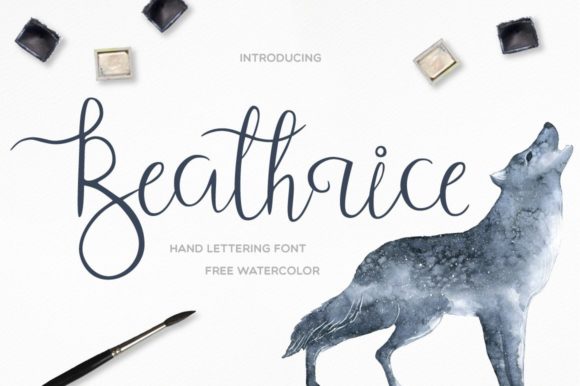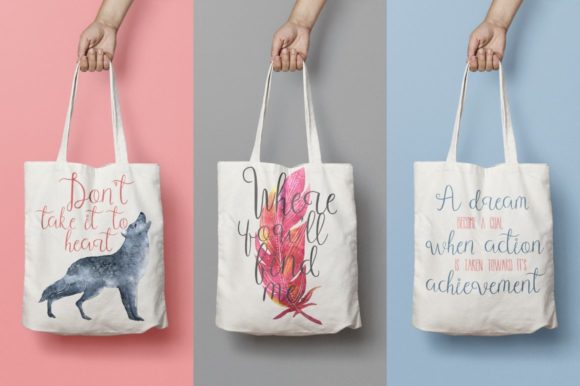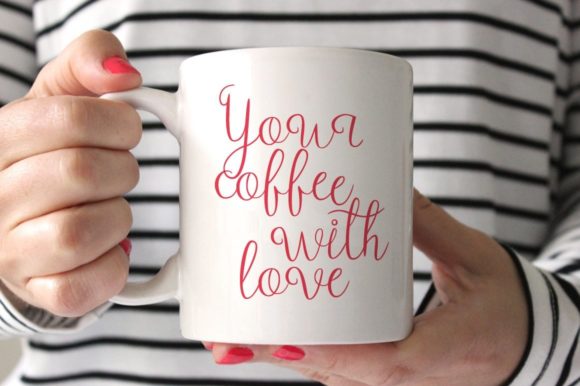
Beathrice Font
About Beathrice Font
It’s Beathrice Font!
This font is handwritten and contains alternative letters and free watercolor elements.
You need to make t-shirt design or invitation? Maybe you want to make poster, send a postcard to friend or a pillow? Or if you have a small shop or a cafe? Use this font for your design.